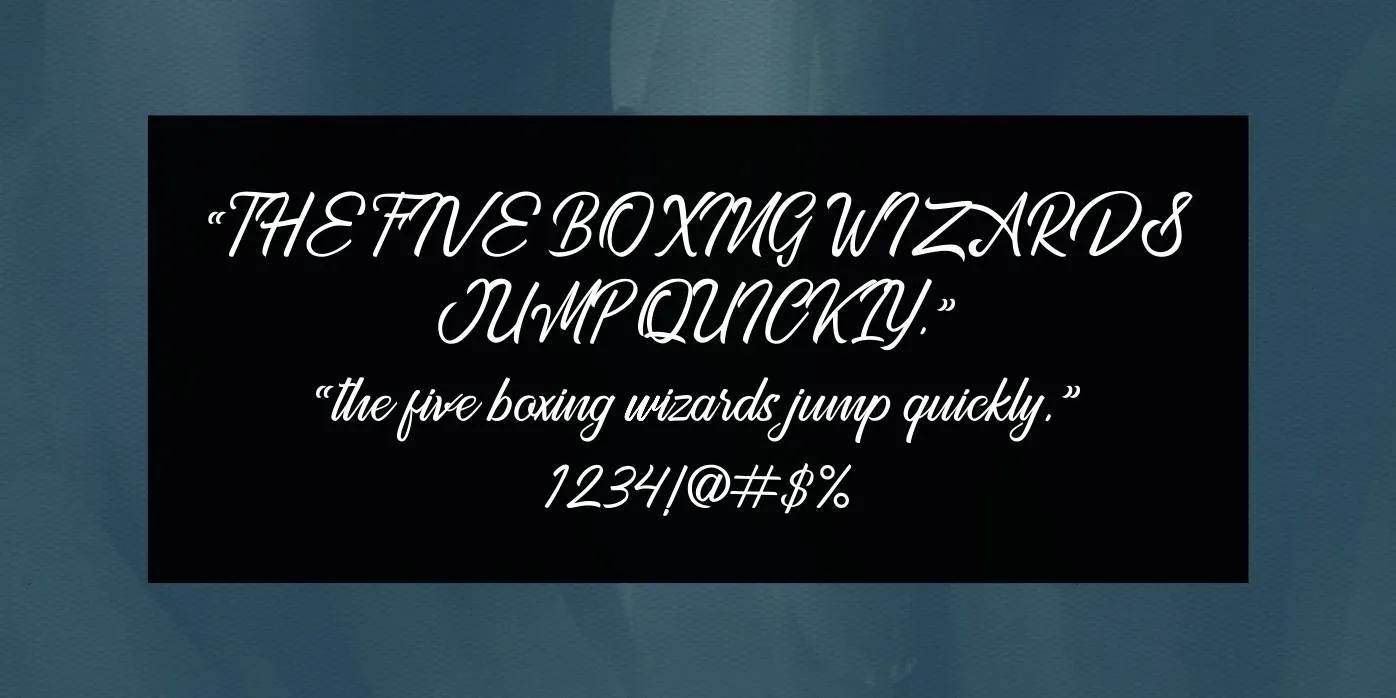
Golden Gates Font
Golden Gates Font is a calligraphy typeface designed by Rivo Dwi Adriansyah in 1892. The design is based on an earlier typeface called Golding, which was created by William H. Page in 1882. This Font was originally intended for use in goldsmithing and other similar crafts.
However, it soon became popular for other uses, such as wedding invitations and other formal documents. The Font has a long history and has been used by many famous people, including John F. Kennedy and Barack Obama. The typeface is still popular today and is often used for academic documents and other important texts.